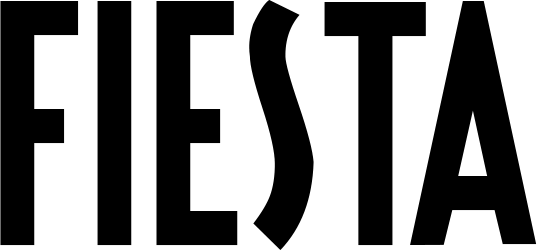
Fiesta Font
If your design doesn’t feel retro enough, this brand new art deco font will improve that for sure. Fiesta has a subtle and impressive design with semi-bold all-caps characters.